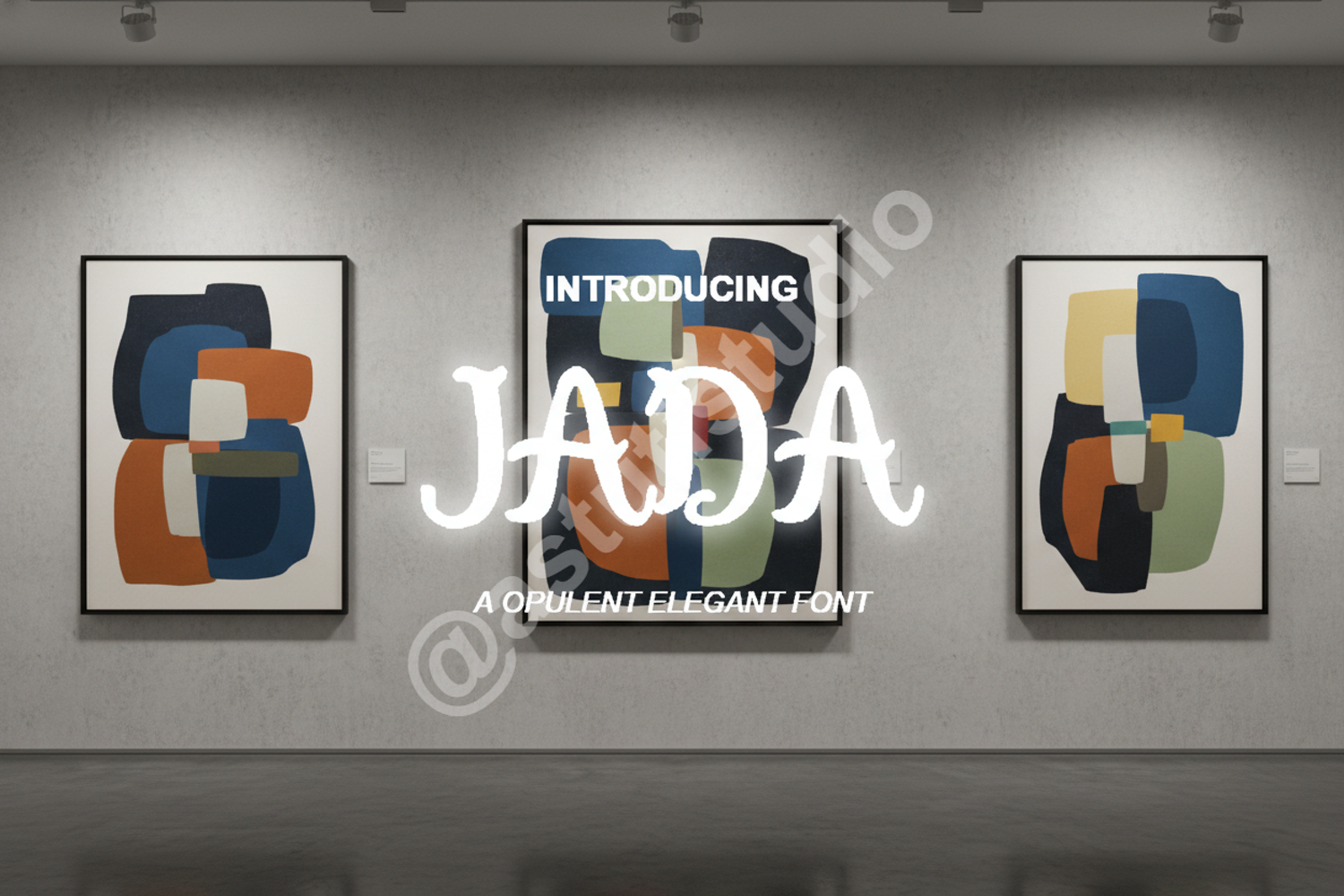
Jada - Sophisticated Modern Serif Typeface
Jada
Experience the perfect blend of classic elegance and contemporary flair with Jada. This premium serif font is meticulously crafted to bring a touch of sophistication to any design project. With its clean lines, refined terminals, and balanced proportions, Jada stands out as a versatile choice for creators seeking a high-end, professional aesthetic.
- Luxury Branding and Identity: Create memorable logos that exude class and authority.
- Editorial Design: Perfect for magazine headers, book covers, and sophisticated layout text.
- Wedding Stationery: Add a timeless and romantic touch to invitations and save-the-date cards.
- High-End Packaging: Elevate product presentation for cosmetics, fashion, or premium lifestyle brands.
- Social Media Graphics: Craft professional and engaging quotes, announcements, and promotional content.